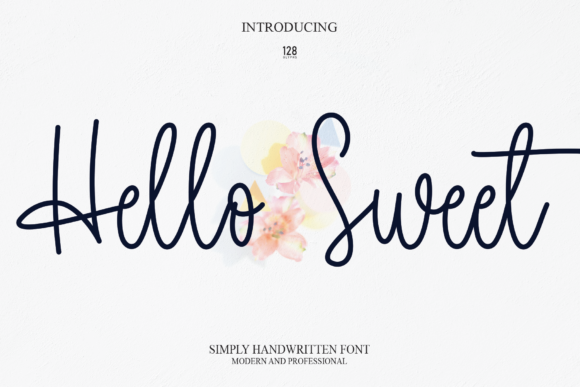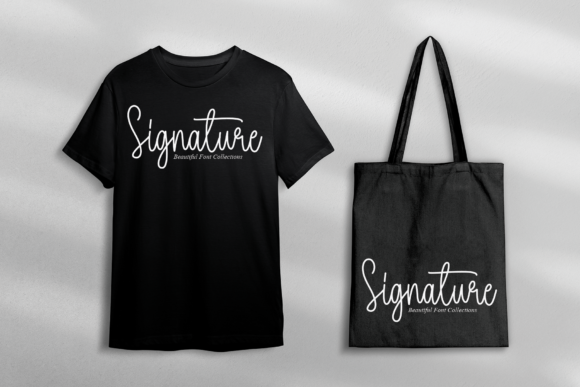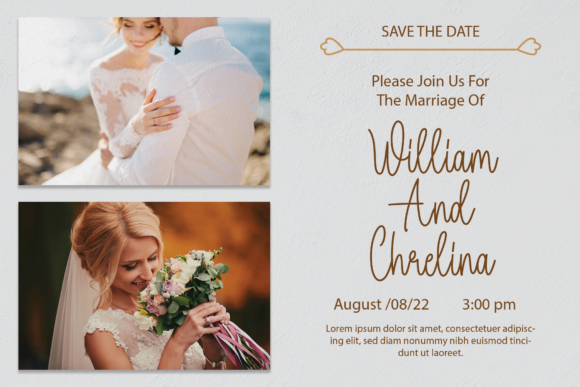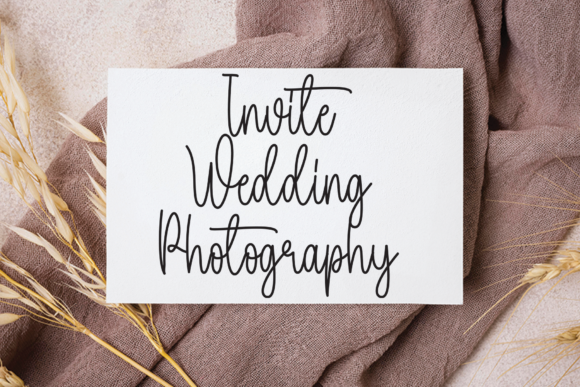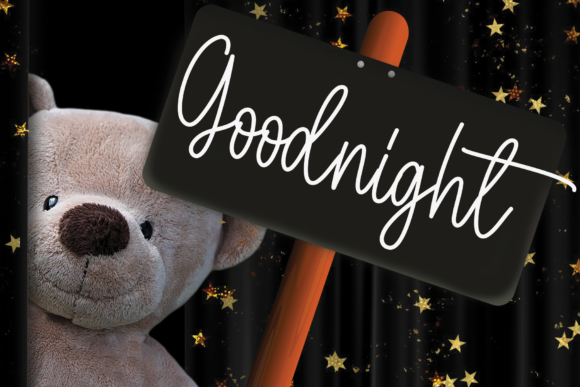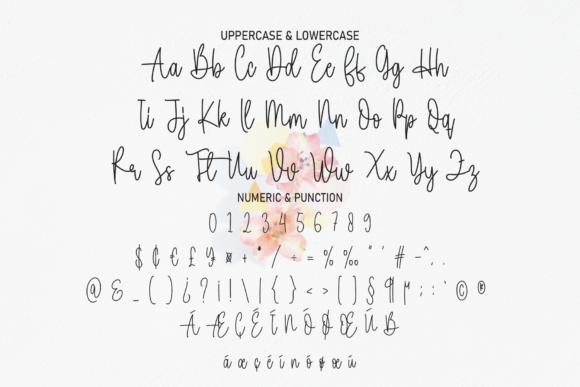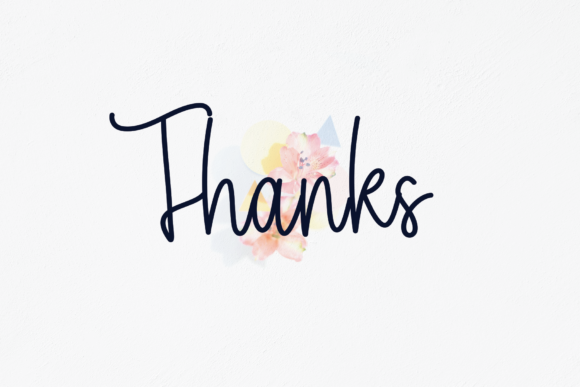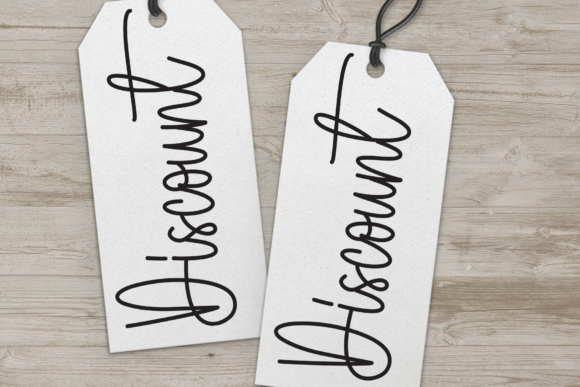
Hello Sweet Font
About Hello Sweet Font
Hello Sweet is a lovely and chic script font that brings a unique charm to any design project. Script fonts like Hello Sweet are known for their fluidity and elegance, often mimicking the style of handwritten calligraphy. This makes them a popular choice for a variety of projects that require a touch of sophistication and personalization.
Whether you’re working on product packaging, a branding project, magazine covers, social media, a wedding, or just using it to express words above the background, Hello Sweet can add a beautiful script taste to your designs. Its lovely and chic nature makes it suitable for both modern and vintage aesthetics, providing a timeless appeal.
In the world of script fonts, Hello Sweet stands out for its unique style. It manages to strike a balance between being lovely and chic, making it a great choice for projects that require a delicate touch. Despite its chic nature, Hello Sweet is robust enough to be used in a variety of applications, from small labels to large signage.
In addition to its aesthetic appeal, Hello Sweet is also practical. It’s easy to read, which is an important consideration when choosing a script font. Despite its lovely, handwritten style, Hello Sweet remains legible even at smaller sizes, making it a reliable choice for a wide range of applications.
In conclusion, Hello Sweet is more than just a lovely and chic script font. It’s a versatile design tool that can bring a unique, personal touch to your projects. Whether you’re a seasoned designer or just starting out, Hello Sweet is a script font worth considering. Its combination of style, versatility, and legibility make it a standout choice in the world of script fonts. So, if you’re looking for a script font that can add a beautiful script taste to your projects, Hello Sweet might just be the perfect fit.